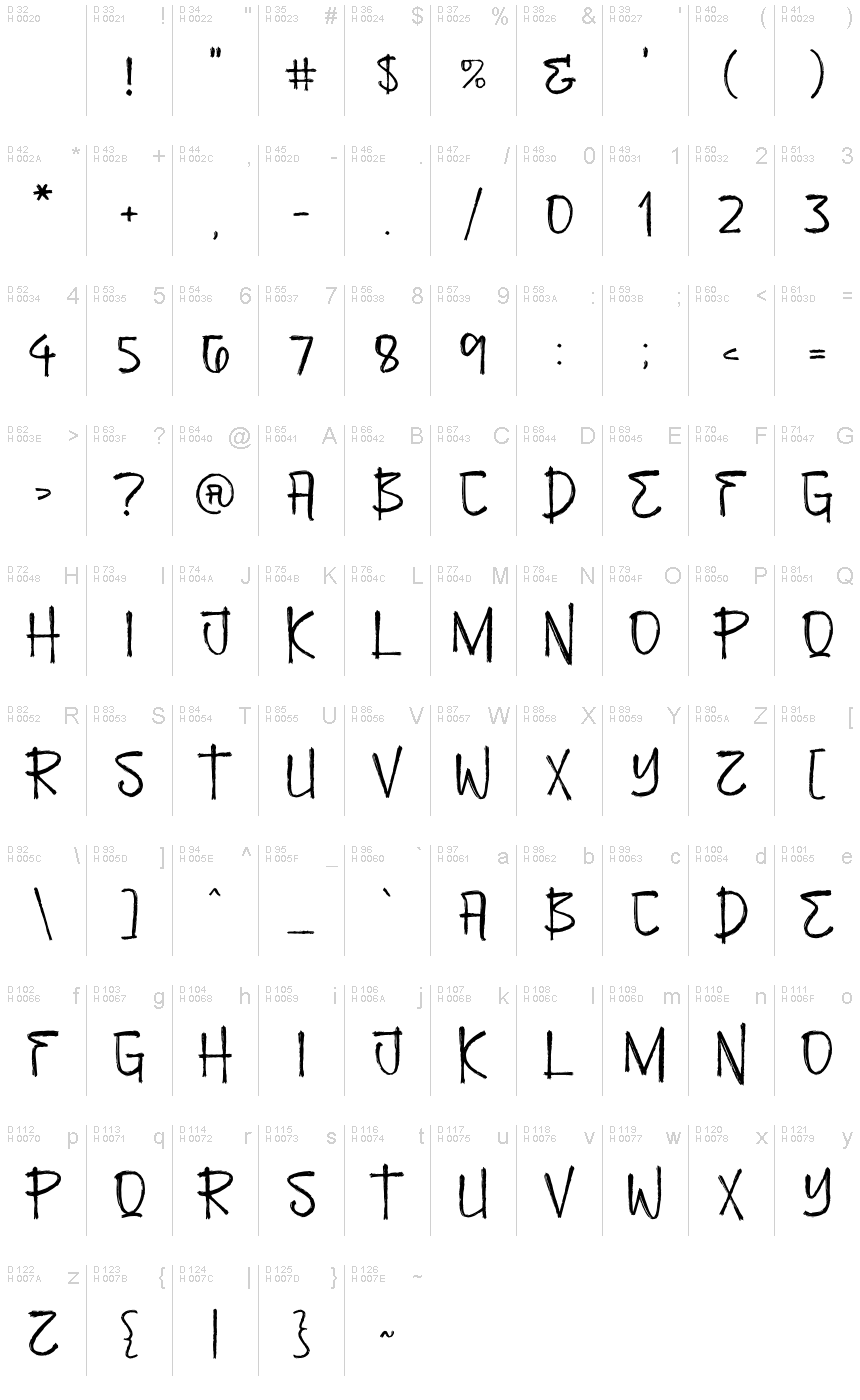
Beverly Switch, a creation by Perspectype Studio from Letterena.com, embodies the spontaneous energy of brush strokes with its dynamic and spirited aesthetics. Its bold presence carries a casual yet assertive tone, while the textured edges suggest a handcrafted quality. This font captures the essence of artistic flair and personal touch, making it ideal for designs that aim to stand out with an expressive and authentic vibe.
The Beverly Switch font finds its home in contexts that benefit from an organic feel; it's perfect for artistic branding, expressive advertising campaigns, and any digital or print medium that calls for a touch of personality. Whether splashed across a book cover or etched into packaging design, this font is sure to convey vibrancy and character.